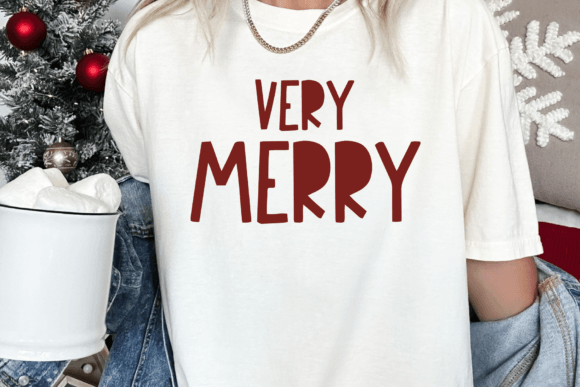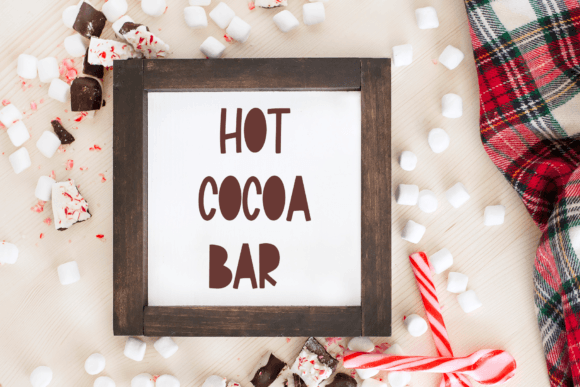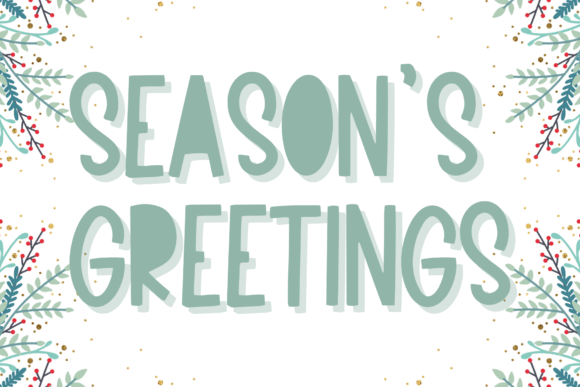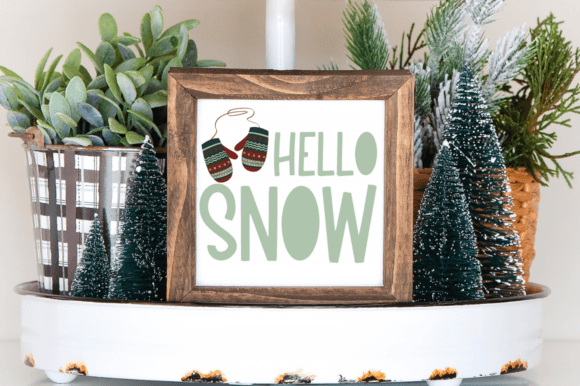
Holly and Jolly Font
Holly and Jolly is a joyful and cute handwritten uppercase font. Perfect for fun logos, holiday cards, t-shirt designs, stickers, social media, and any craft or project.